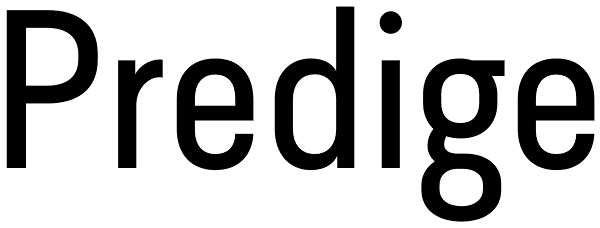
Predige
Predige is a condensed and constructed sans type family, with a very low contrast. The Predige family includes 7 weights, from Hairline to Black, with their corresponding italics. Each font includes OpenType Features such as Proportional Figure...